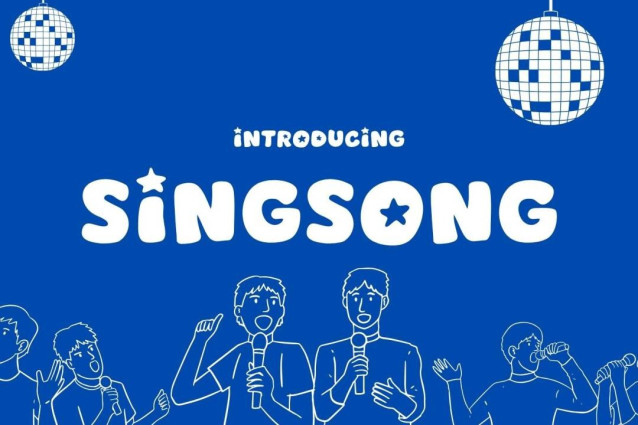
Singsong Font
Singsong Font is a simple and modern display font suitable for quotes, logos, headings, titles, and many more. Use it on any of your creative projects, and your designs will become outstanding!